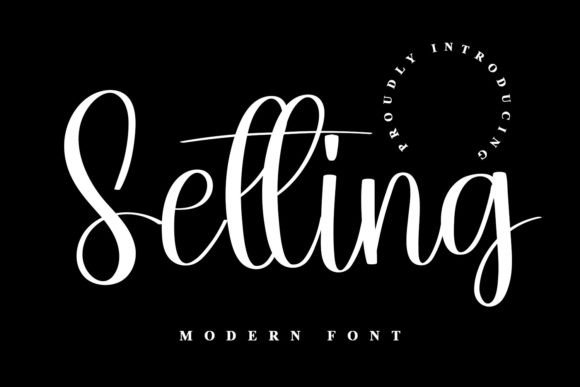
Step into the world of elegance and sophistication with Setting Font, the modern script font that will transform your creative projects into masterpieces. Exquisitely crafted by the talented hands of ABBAsalam, this font family embodies the essence of grace and refinement, making it the perfect choice for those seeking a touch of luxury and charm in their designs.
Setting Font's sweeping letterforms flow effortlessly, creating a visual symphony that captures the eye and captivates the heart. Each stroke is meticulously rendered, showcasing intricate details that add depth and dimension to your designs. Whether you're a seasoned designer or just starting your creative journey, Setting Font is the perfect tool to elevate your work to new heights.
Immerse yourself in a world of creativity and let Setting Font inspire you to create stunning invitations that set the tone for your special occasions. Its elegant curves and delicate flourishes will add a touch of timeless beauty to your wedding invitations, save-the-dates, and other formal correspondence.
Unleash your inner artist and craft luxurious branding that exudes professionalism and sophistication. Setting Font's refined style will elevate your business cards, letterheads, and marketing materials, making a lasting impression on your clients and customers.
Let Setting Font be your muse for captivating editorial designs that draw readers in and leave them spellbound. Its graceful lines and alluring details will add a touch of elegance to your articles, blog posts, and other written content, ensuring that your words leave a lasting impact.